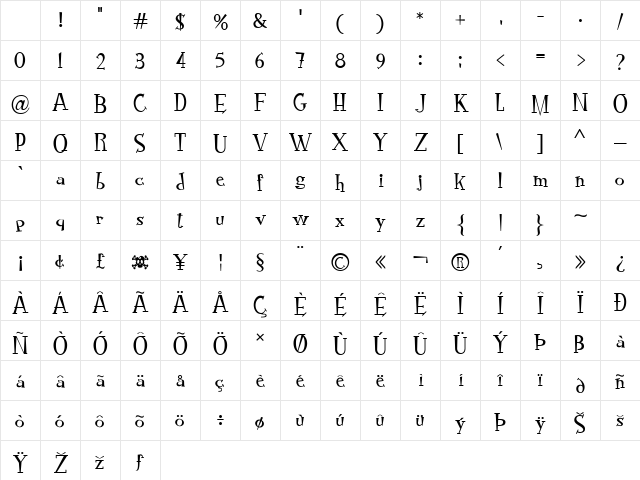
RocknRoll Typo is a composed and adaptable typeface that performs quietly and consistently across a wide range of design contexts.
Pro Tip: Use RocknRoll Typo in both headline and body roles to test its range before committing to a single application.